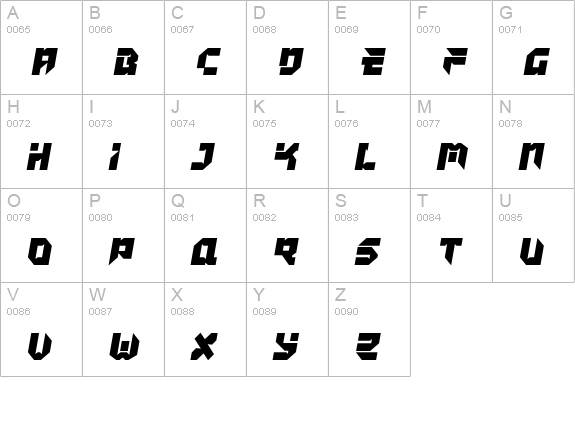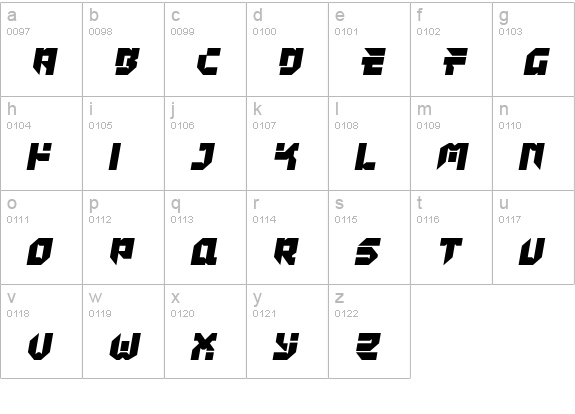
Tokyo Drifter is a donationware font in the Modern > Techno category, designed by Iconian. It has been downloaded 67 times and is available for Windows, Mac and Linux.
Tokyo Drifter font is a sleek and stylish typeface that exudes a sense of modernity and sophistication. Its clean lines and bold strokes make it perfect for a wide range of design projects, from branding to web design. The font's unique aesthetic is inspired by the fast-paced energy of Tokyo's bustling streets, making it the ideal choice for projects that require a touch of urban flair.